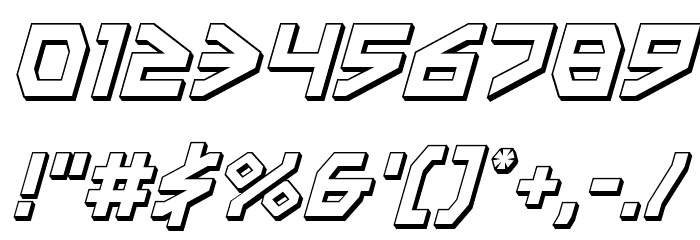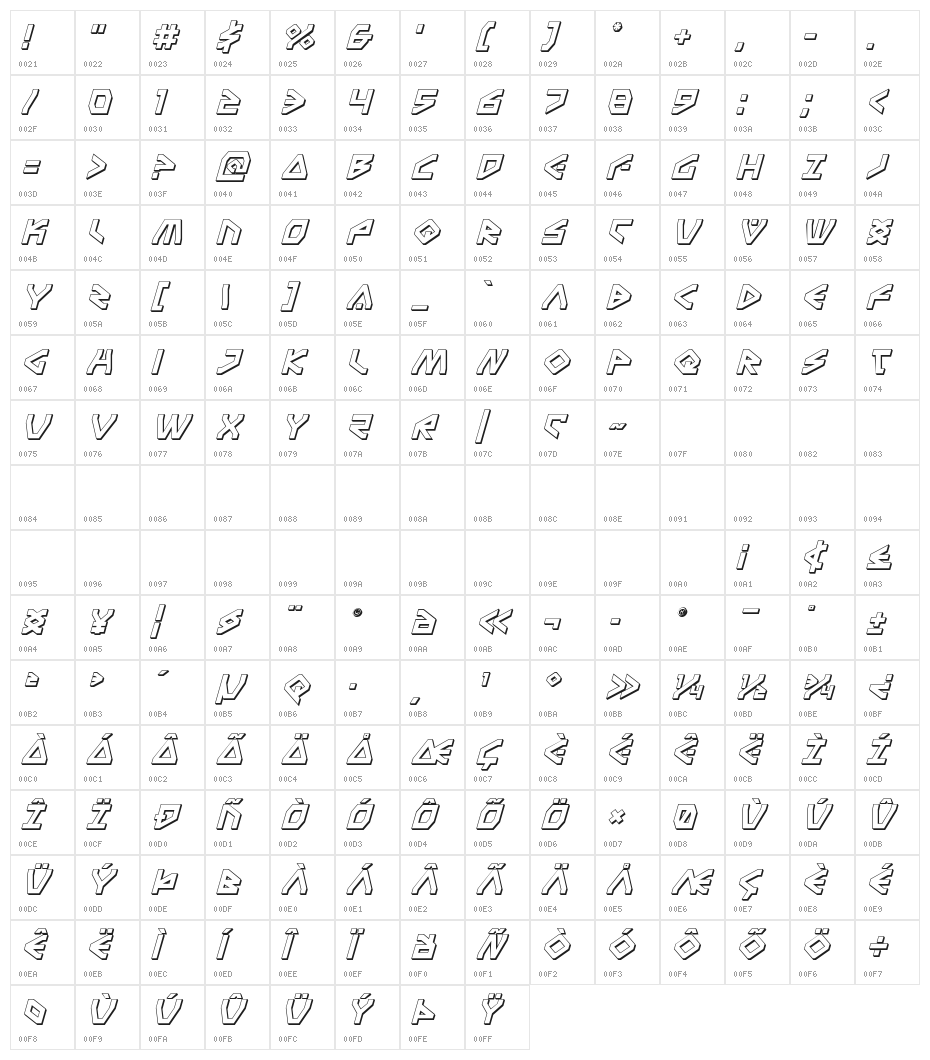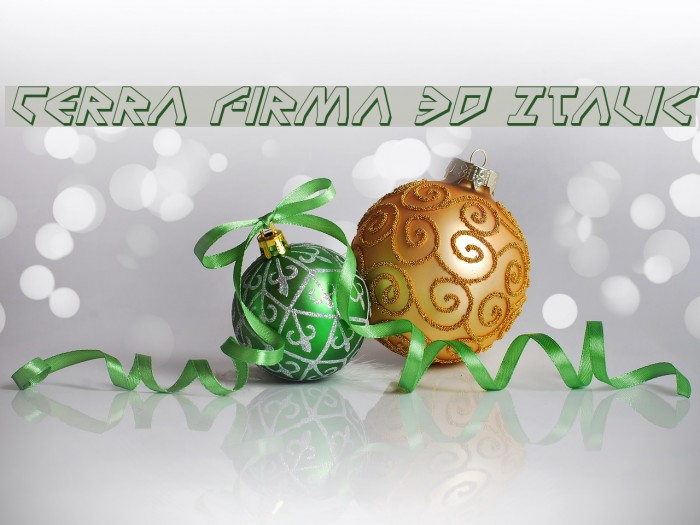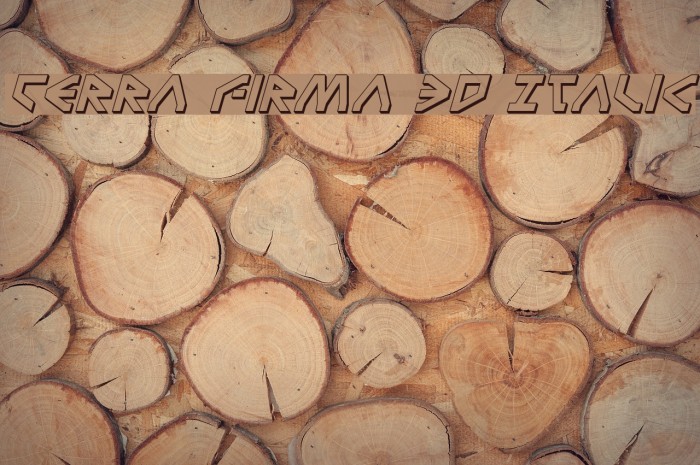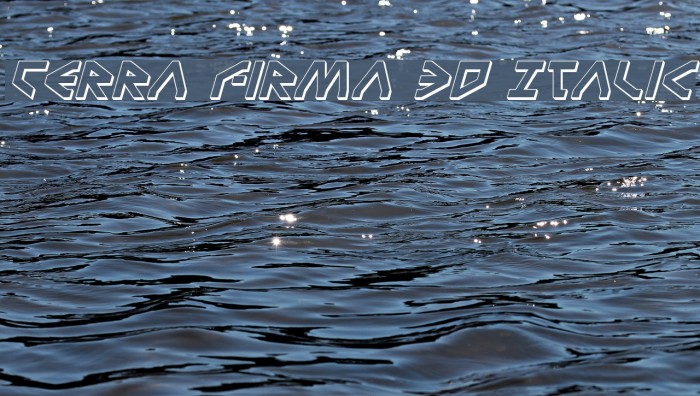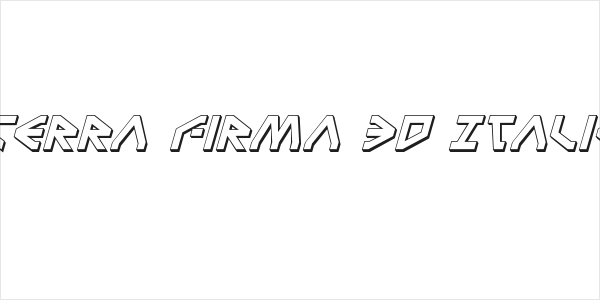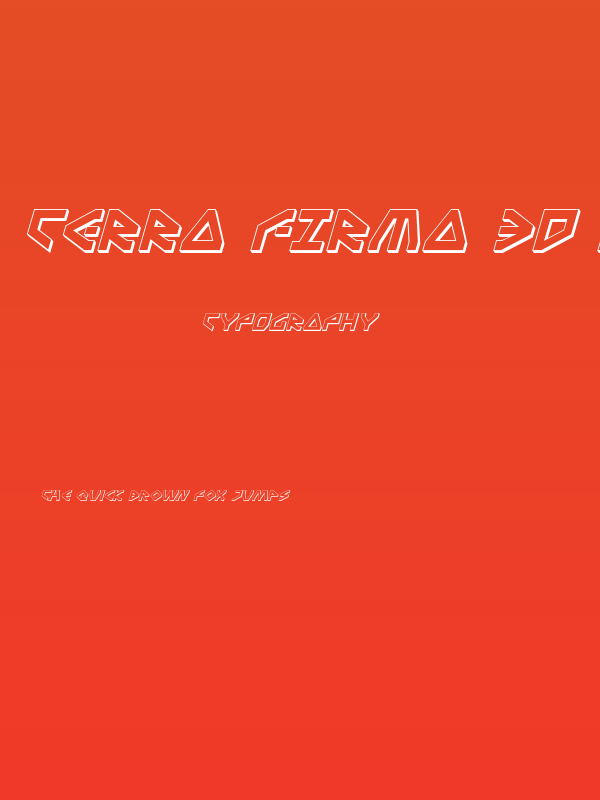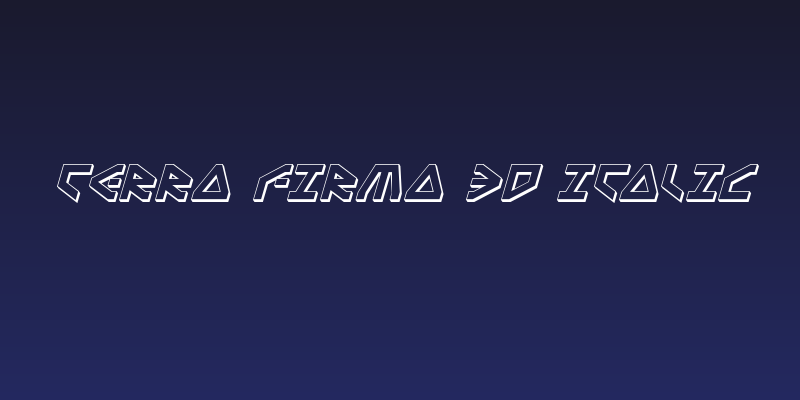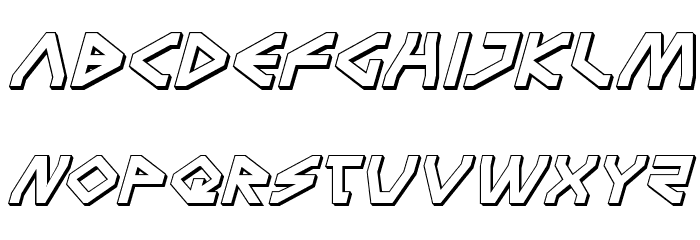
Terra Firma 3D Italic Font
Terra Firma 3D Italic Description
This font features a bold, three-dimensional design with an italic slant, giving it a dynamic and futuristic appearance. The characters are outlined, creating a striking visual effect that enhances their 3D look. The angular and geometric shapes of the letters contribute to its modern aesthetic, making it suitable for attention-grabbing designs. The uppercase and lowercase letters maintain a consistent style, while the numbers and special characters complement the overall design. Its unique style is ideal for projects that require a bold and innovative typeface.
| Proposed Projects | Ideal for sci-fi themed posters, video game titles, futuristic branding, and tech-related advertisements. |